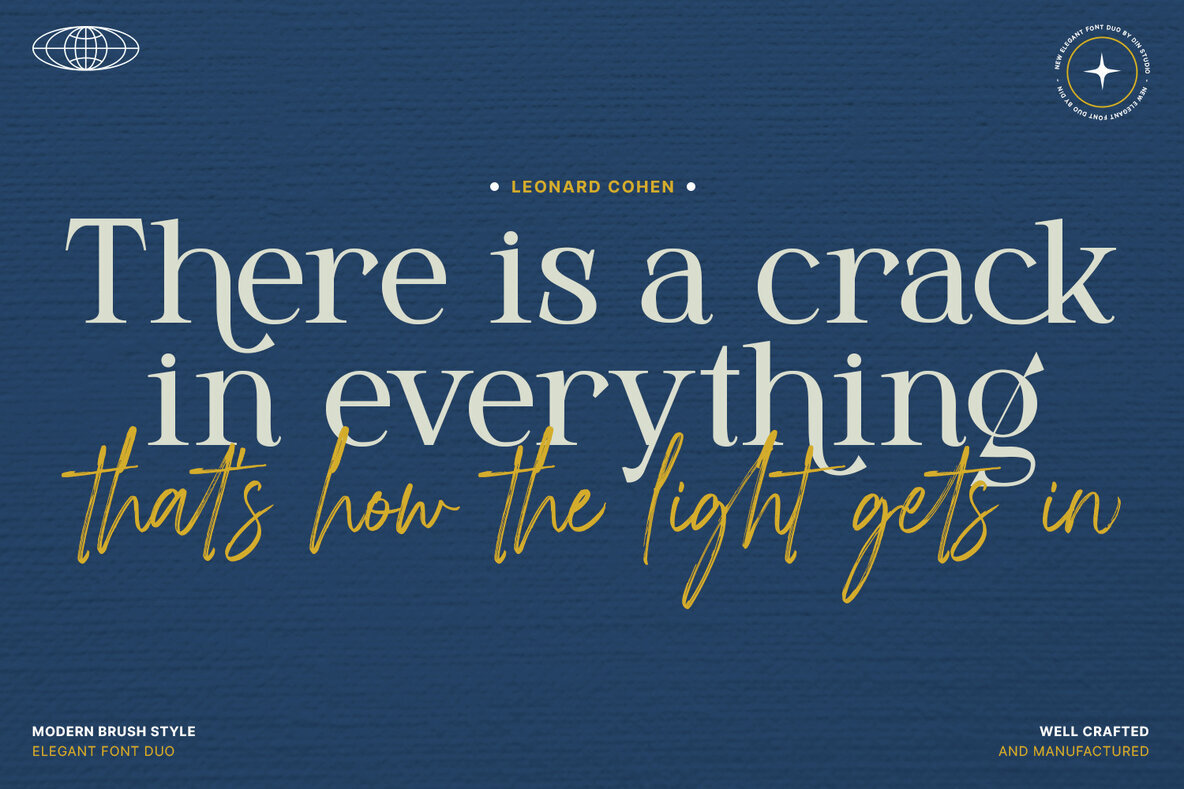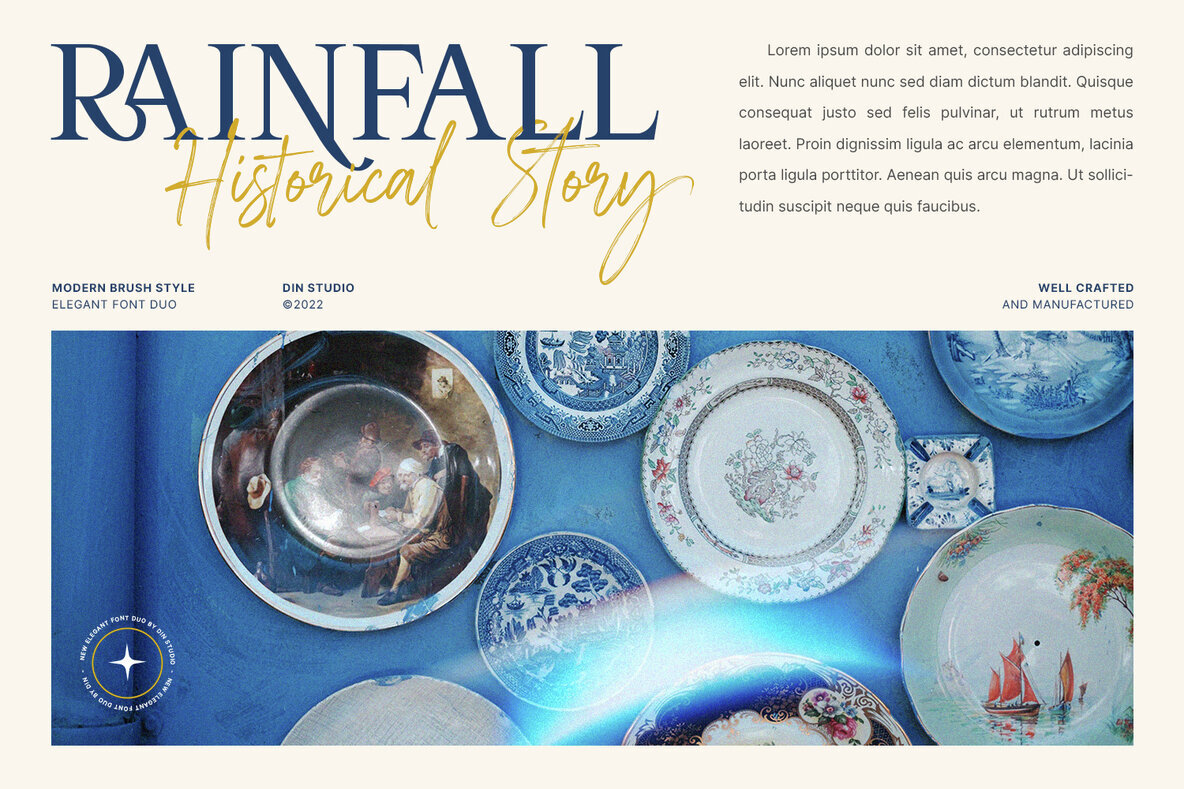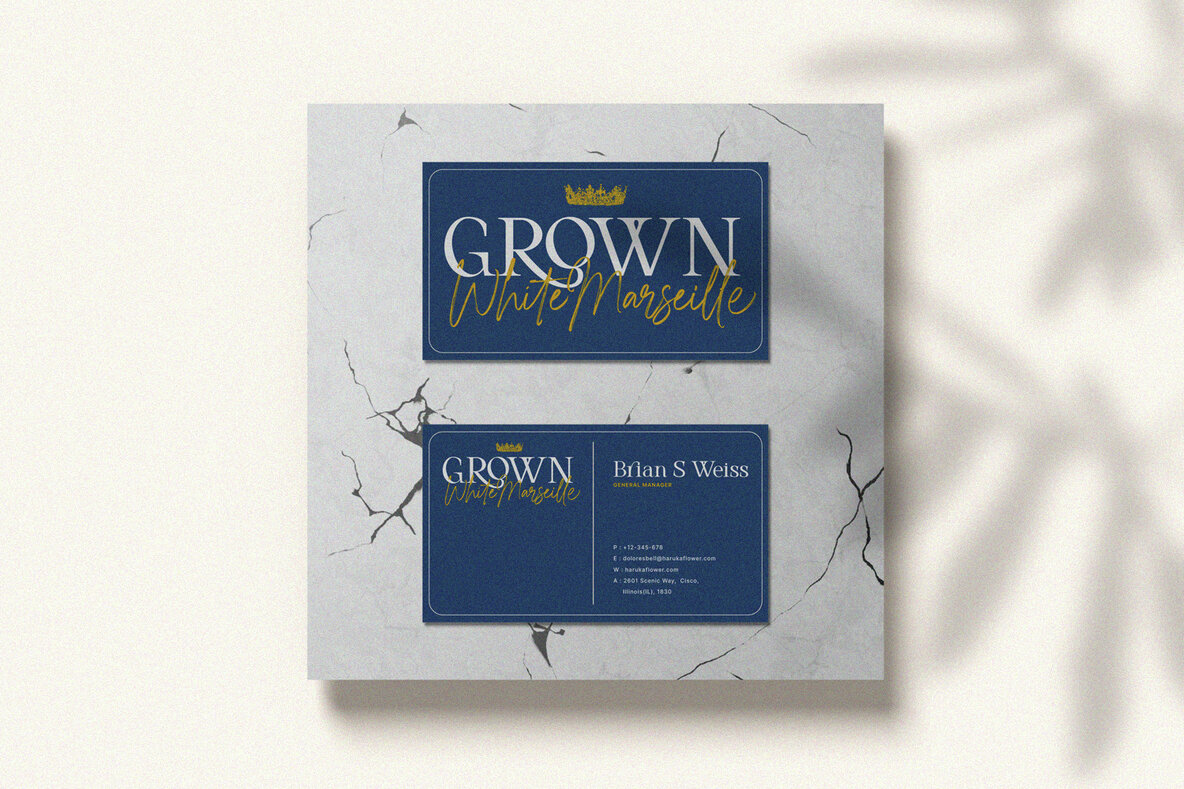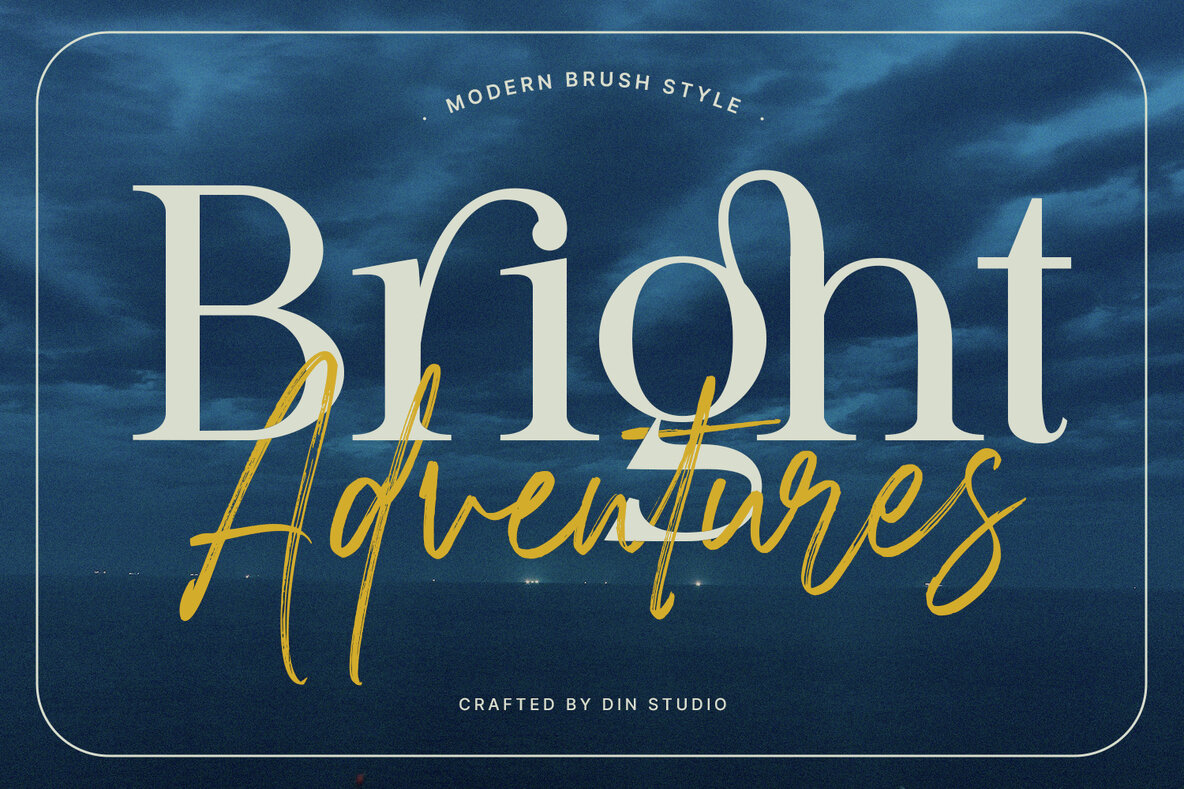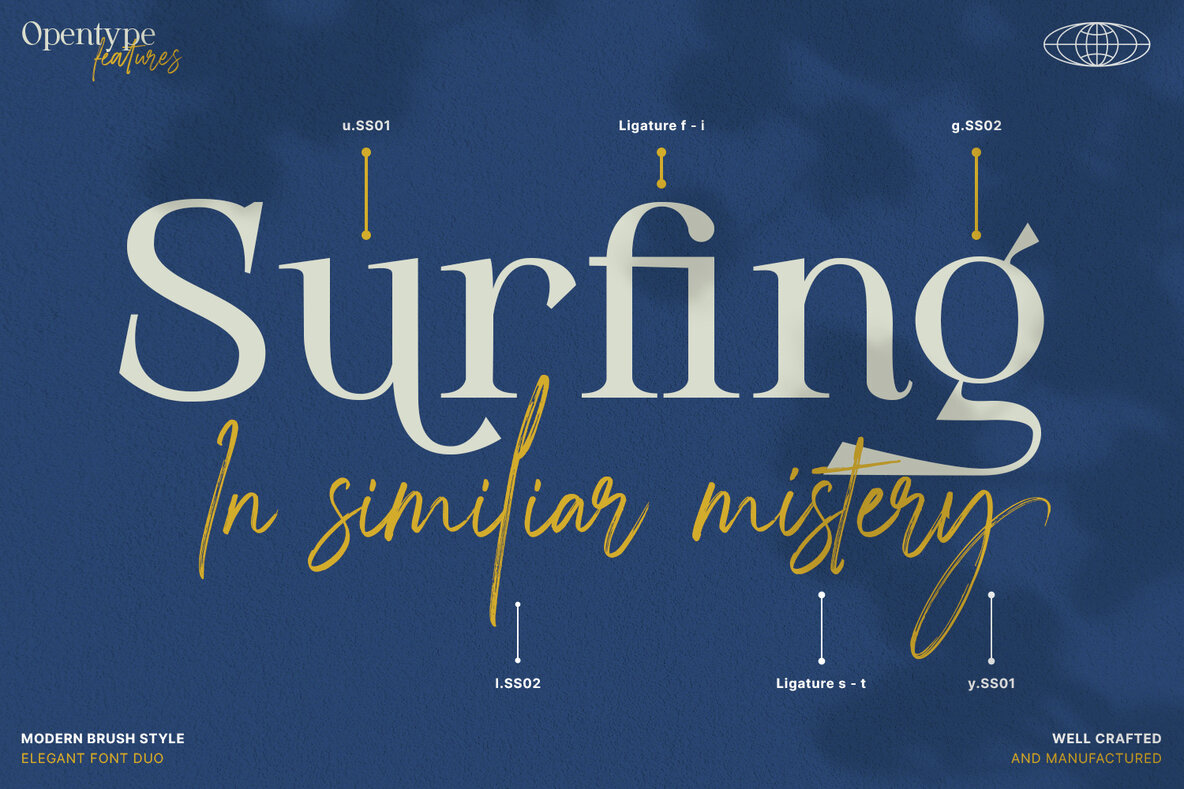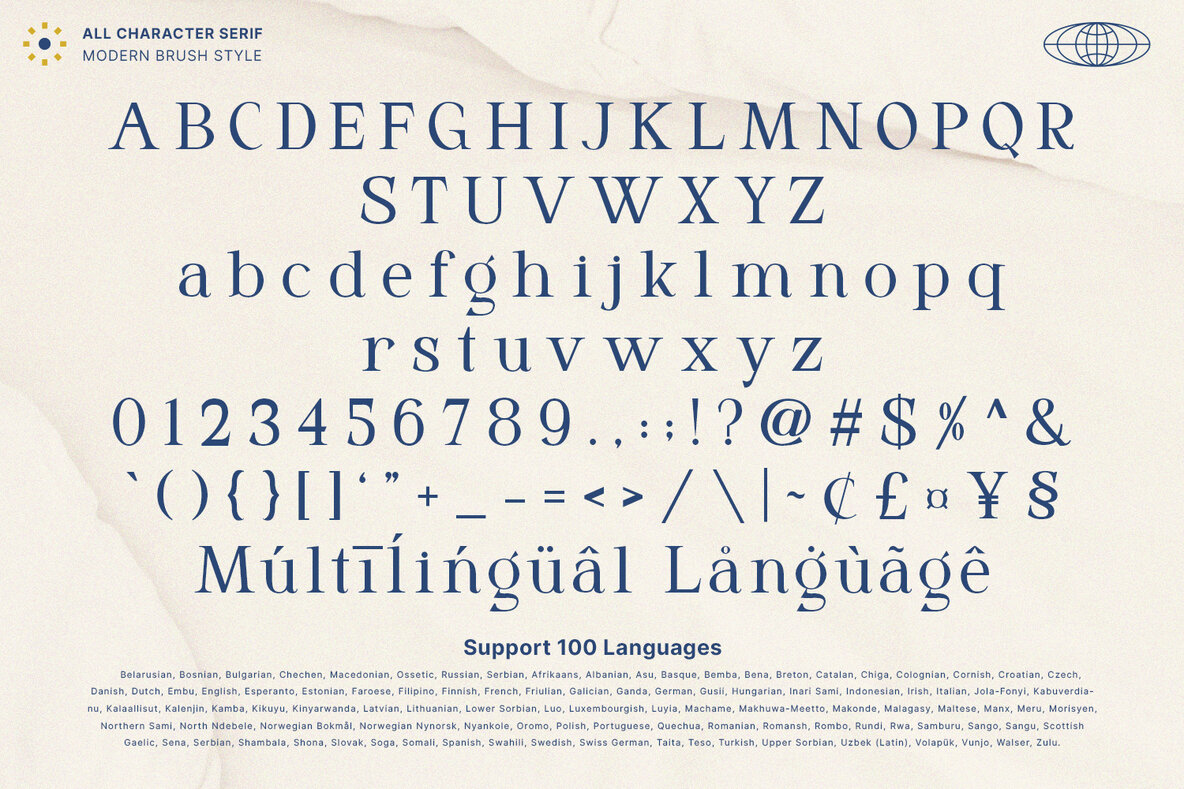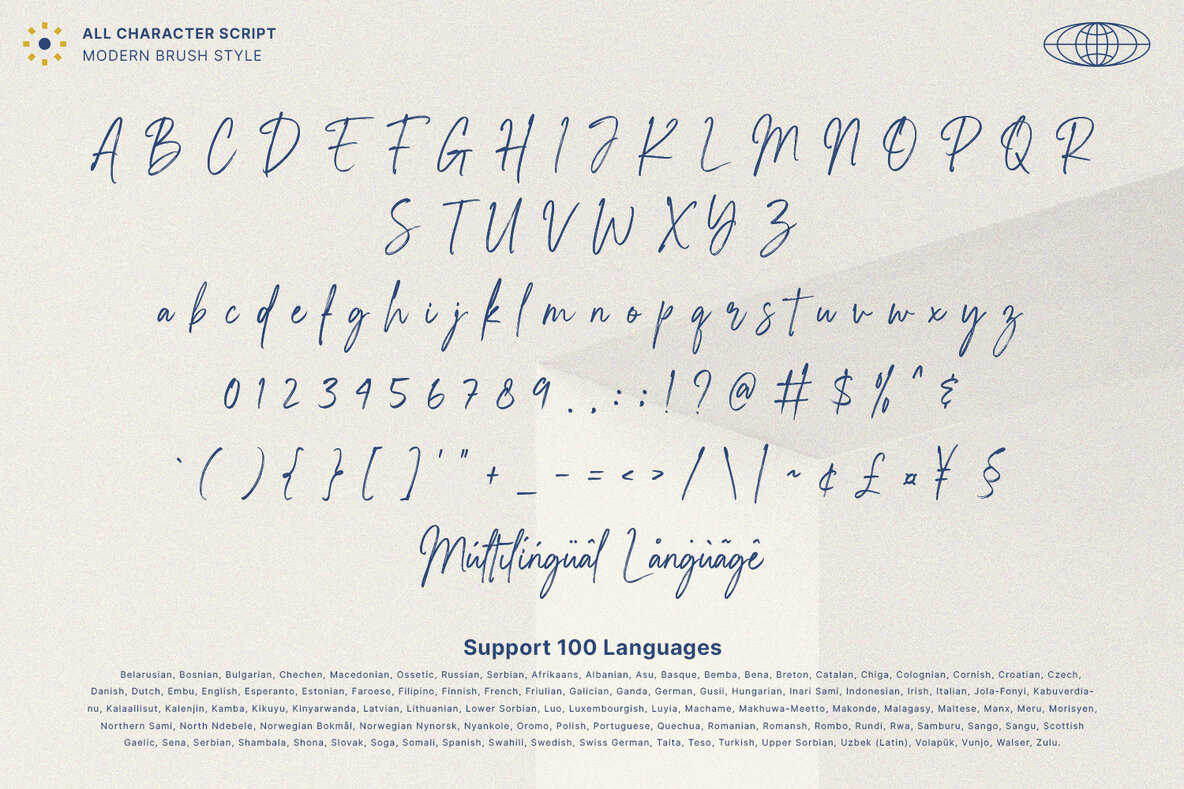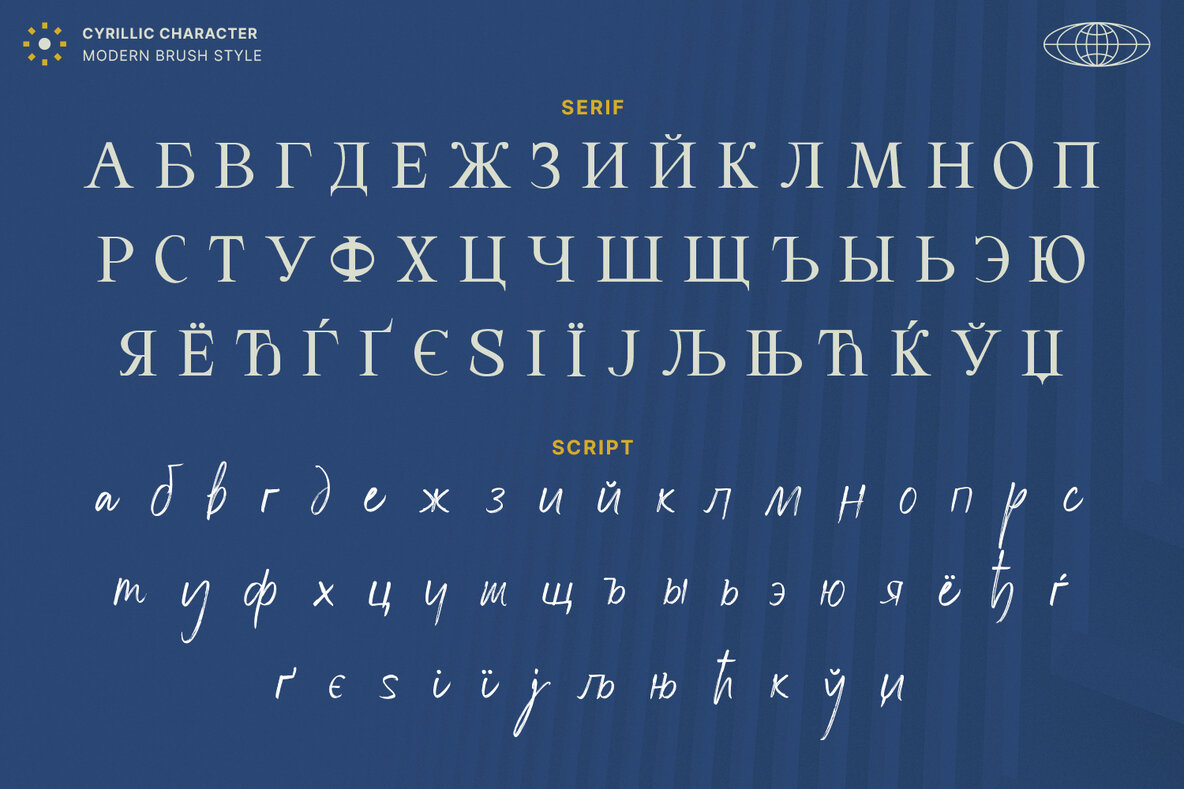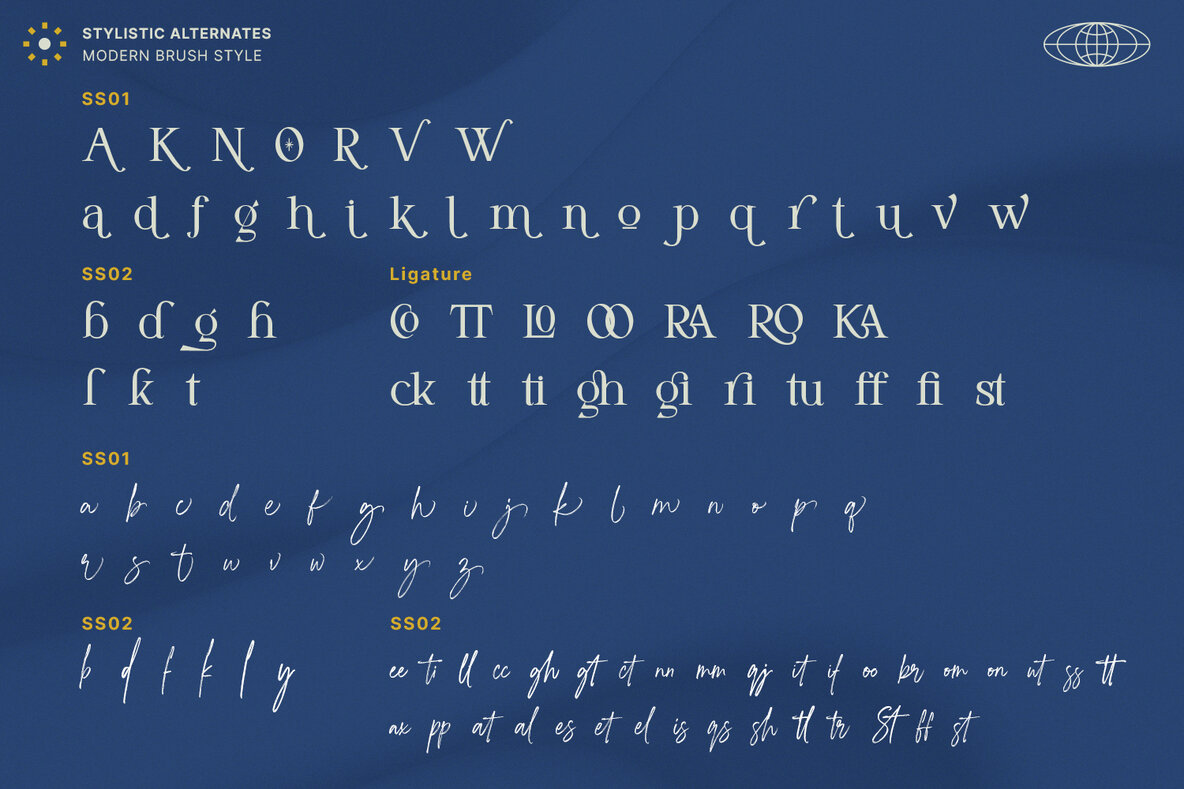
Modern Brush Font
Modern Brush is a font duo combinations of serif and script font to express modern, elegant impressions in your designs. The serif font is characterized by scratches or hooks connecting the letters. On the other hand, script font is designed in brush styles of which letters are interconnected looking similar to a curve writing. You can use this font mixture as a beautiful set or separately as their own lovely characters. Additionally, this font duo has some unique features to enable you to maximize your designs. Features: Modern Brush fits for various design projects, such as posters, banners, logos, magazine covers, quotes, name cards, headings, printed products, merchandise, social media, etc. Find out more ways to use this font by taking a look at the font preview.